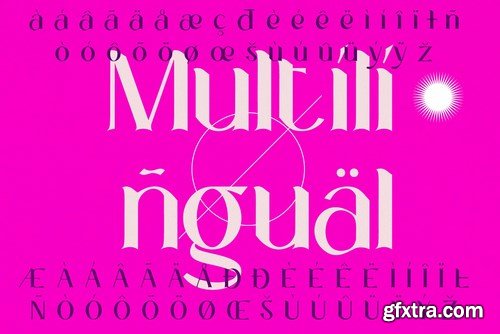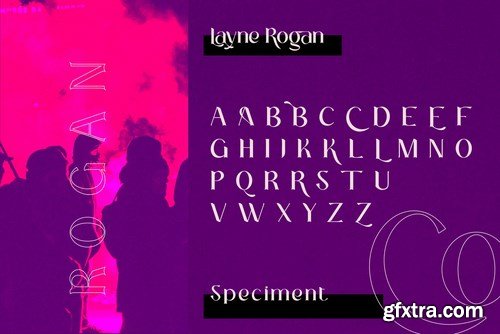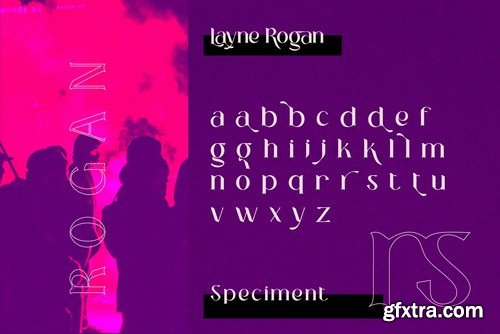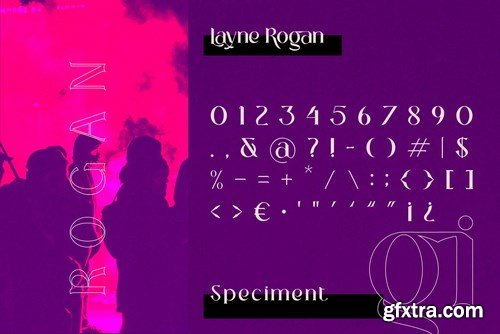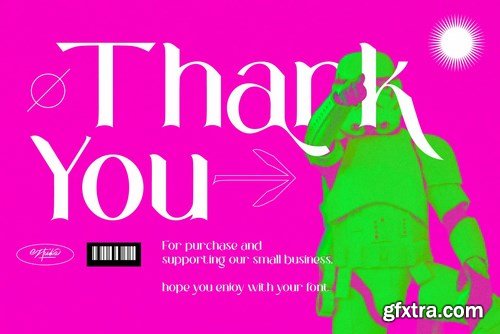
Layne Rogan is a chic and trendy display font. It has a classy and modern look that can be used for logos, branding, invitations, stationery, wedding designs, social media posts, and much more!